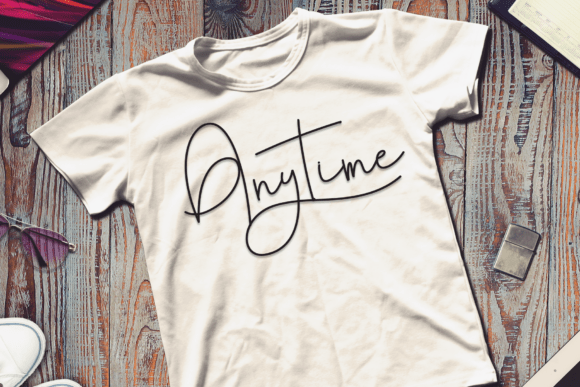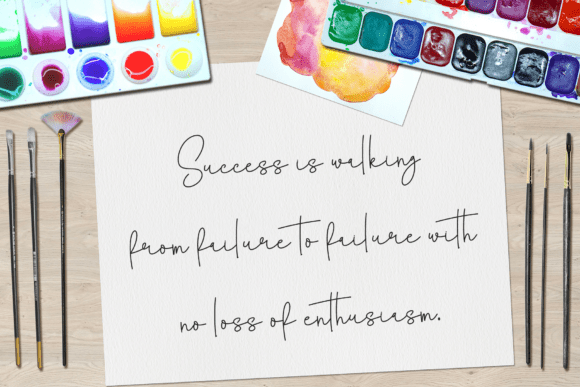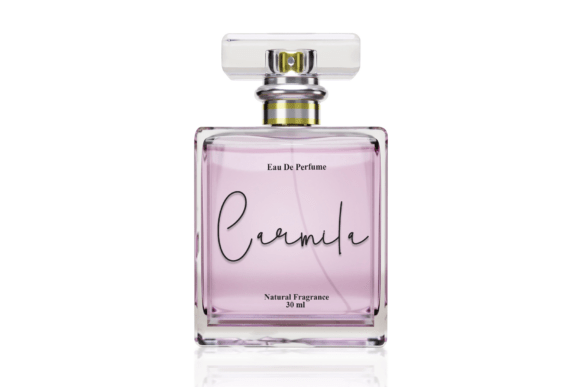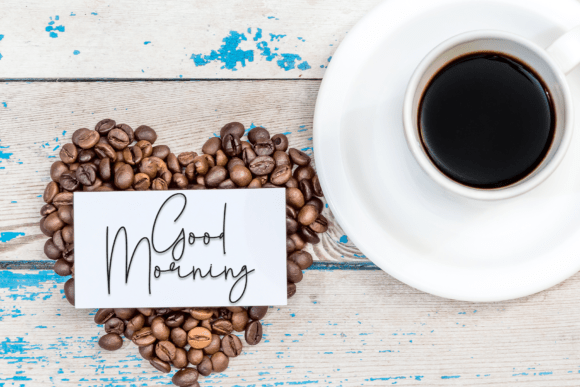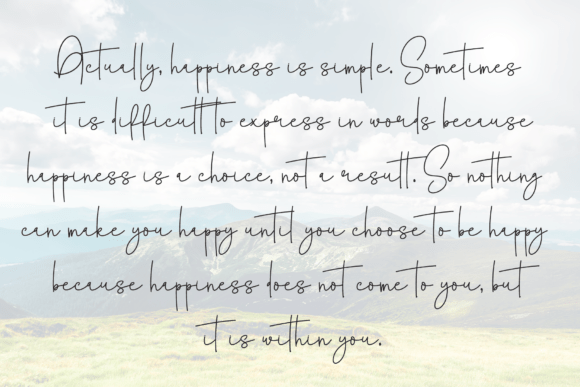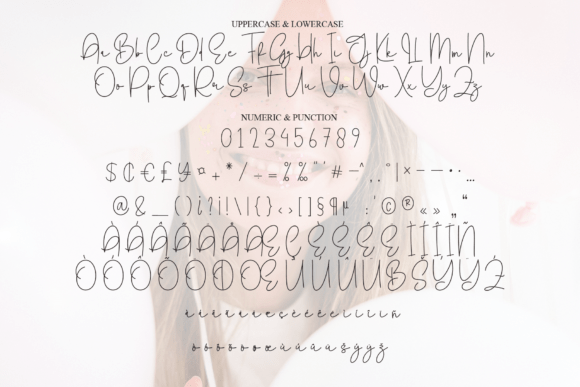
The Perfect Touch of Personality: Unveiling Delightful Font
Have you ever stared at a blank canvas, eager to bring a project to life, only to be struck by the daunting question: “What font should I use?” The search for the perfect typeface can be overwhelming, but what if you could find one that embodies the essence of your creative vision?
Enter Delightful Font, a stylish handwritten script font that effortlessly blends modern elegance with a playful touch. This versatile font is designed to bring a personal feel to any design, making it perfect for logos, packaging, and invitations. With its fluid strokes and charming curves, Delightful Font adds warmth, sophistication, and creativity to every project, elevating your design game to new heights.
For designers, Delightful Font is a valuable asset that can help you stand out in a crowded market. Its unique personality and versatility make it an ideal choice for any project, from branding to editorial design. Whether you’re a seasoned pro or just starting out, Delightful Font is sure to delight and inspire your next creative endeavor.
Delightful Font Key Features
- Font Size: Delightful Font is available in 4 font sizes: Delightful (Regular), Delightful Bold, Delightful Italic, and Delightful Bold Italic.
- Unique Characteristics: Delightful Font features a unique blend of elegance and playfulness, with intricate details and subtle flourishes that add a touch of sophistication to any design.
- Language Support: Delightful Font supports a wide range of languages, including Latin, Cyrillic, and Greek alphabets.
- Scalability: Delightful Font is designed to be highly scalable, making it suitable for use in a variety of contexts, from small text to large headings.
Review of Delightful Font
Overall, I’m quite impressed with Delightful Font. It’s a great addition to any project that needs a touch of whimsy and elegance. Here are some things that work well:
- ✨ The font is highly customizable, with a wide range of sizes, colors, and styles to choose from.
- ✨ The design is playful and fun, making it perfect for projects that need a bit of personality.
- ✨ The font is highly legible, even at small sizes, making it easy to read and use in a variety of contexts.
- ⚠️ The font may not be suitable for projects that require a more formal or professional tone.
- ⚠️ Some users may find the font’s irregularities and quirks to be distracting or difficult to work with.
Overall, I think Delightful Font is a great choice for projects that need a touch of personality and whimsy. While it may not be suitable for every project, it’s definitely worth considering for those that need a bit of flair.
Delightful Font Practical Application Guide
In PowerPoint and Word, Delightful Font can be applied using the Font dialog box. Select the font from the dropdown menu and adjust the font size, color, and style to match your design needs. Use the font consistently throughout your document to create a cohesive look.
Tips for Getting the Most Out of Delightful Font
To get the most out of Delightful Font, experiment with different font sizes, colors, and styles to create a unique look. Pair Delightful Font with other fonts to create a visually appealing combination. Use Delightful Font consistently throughout your design to create a cohesive brand identity.
Delightful Font is ideal for use in logo design, branding, and marketing materials. Its playful and whimsical style makes it perfect for creating eye-catching headings and titles. Use Delightful Font in social media graphics, blog posts, and email marketing campaigns to add a touch of personality and whimsy to your content.
Q: What is the recommended font size for optimal readability with Delightful Font?
The recommended font size for optimal readability with Delightful Font is between 12pt and 18pt, depending on the application and intended use. However, feel free to experiment with different font sizes to find the best fit for your design.